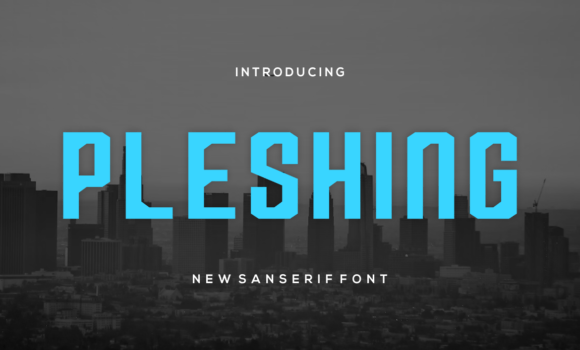
pleshing
Pleshing Font – Free Download Introduction to Pleshing Font Pleshing is a modern and bold display font that embodies authenticity and strength. 📸 Preview Gallery 4 images 📌 Product Name Pleshing Font 👤 Author kalingga.albert 📂 Category Explore ⬇️ Download